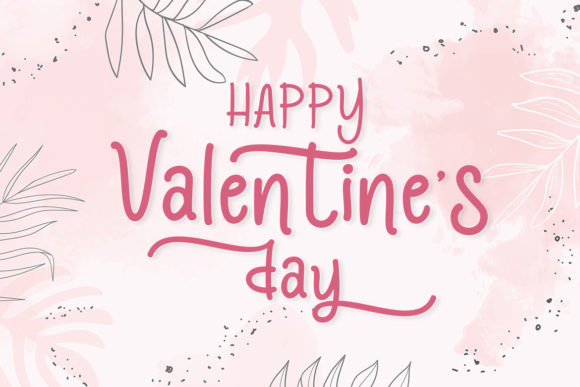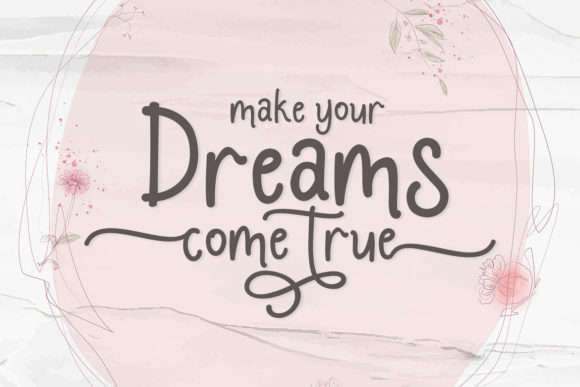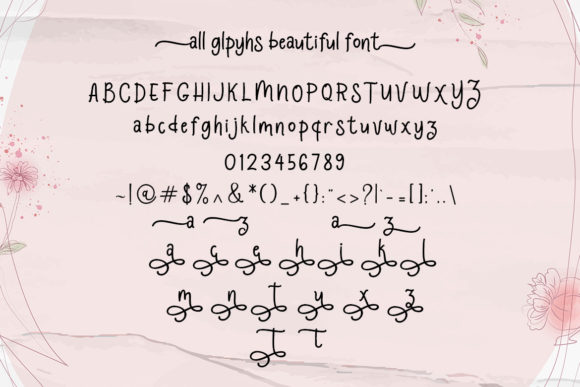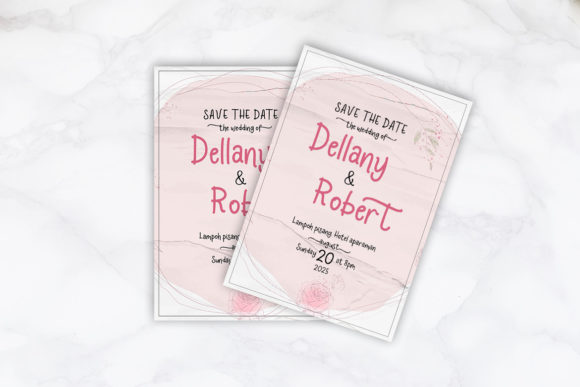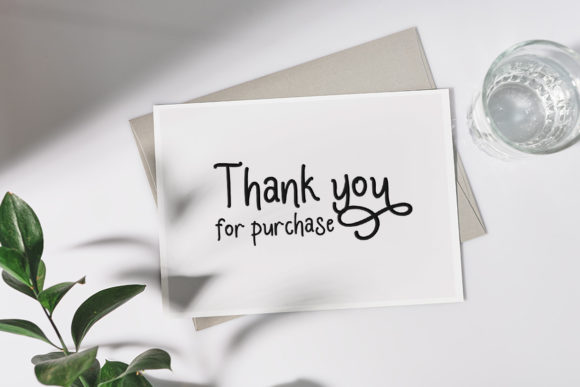
Unlocking Whimsical Design with the Beautiful Font
As a designer, have you ever found yourself daydreaming about the perfect font to elevate your project? Perhaps you’re envisioning a beautiful, hand-painted script that transports your audience to a world of wonder and magic. If so, you’re in luck! The Beautiful Font is here to bring your creative vision to life.
This enchanting script font is designed to evoke a sense of joy and playfulness, making it the perfect choice for designers looking to add a touch of whimsy to their designs. With its modern yet delicate style, the Beautiful Font is sure to captivate your audience and leave a lasting impression. Whether you’re working on a branding project, a wedding invitation, or a children’s book, this font is sure to bring your designs to the next level.
Key Features of Beautiful Font
- Size: 1000 glyphs, covering Latin, Cyrillic, Greek, and many other languages
- Resolution: Supports high-resolution displays (Retina, 4K, and beyond)
- Unique Characteristics:
- Beautiful Font features a modern, elegant design with refined lines and subtle flair
- Highly legible in various font sizes and resolutions
- Font Weight: Supports 8 font weights, from Light to Extra Bold
- Language Support: Covers over 150 languages, including right-to-left languages
Designer Review: Beautiful Font
Overall, I think Beautiful Font has some amazing qualities that make it stand out. ✨ It’s incredibly versatile and works well in a variety of design contexts, from body text to headings. The font is also highly legible, making it perfect for long-form content like articles and essays.
Here are some specific features that I think make Beautiful Font shine:
- ✨ Excellent legibility: Beautiful Font is easy to read, even at small font sizes.
- ✨ High versatility: It works well in a range of design contexts, from formal to informal.
- ✨ Beautiful glyphs: The font features beautiful, well-designed glyphs that add a touch of elegance to any design.
- ⚠️ Limited font sizes: Beautiful Font can become a bit difficult to read when scaled up to larger font sizes.
- ⚠️ Limited customization options: While the font is highly versatile, it can be difficult to customize it to fit specific design needs.
Overall, I think Beautiful Font is a solid choice for designers looking for a versatile, legible font. While it may have some limitations, its strengths far outweigh its weaknesses, making it a great addition to any design toolkit.
Beautiful Font is ideal for:
- Custom typography projects
- Presentations and documents
- Branding and identity design
Experiment with Beautiful Font to find the perfect look for your project.
Comparison to Beautiful Font: Montserrat is more geometric and has a stronger feel than Beautiful Font. It is also more versatile and can be used in a wider range of contexts, from modern websites to traditional print materials.